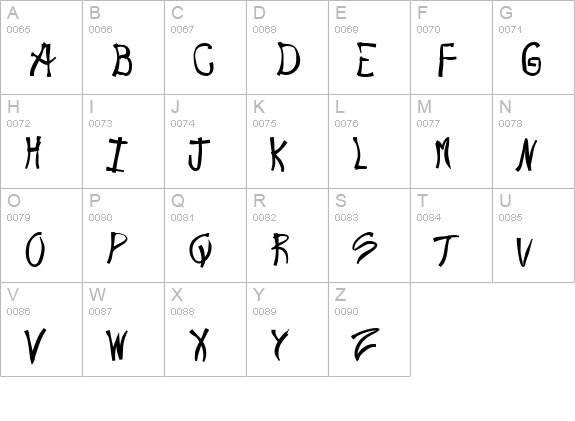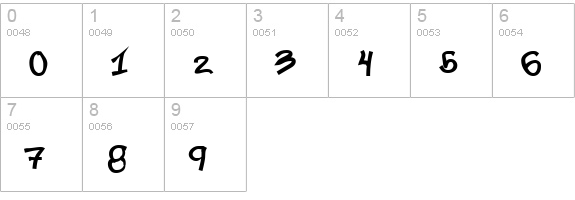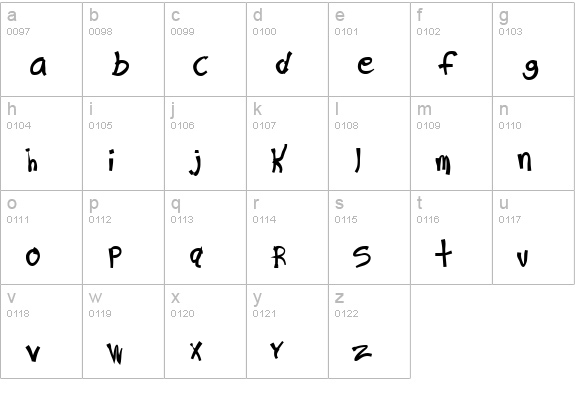
Ra's Hand Font Details
Ra's Hand is a unique and captivating font that brings a touch of elegance and artistry to any design project. With its fluid and graceful strokes, this font emulates the beauty and intricacy of hand-drawn calligraphy. Each character is meticulously crafted, showcasing the artist's attention to detail and commitment to excellence. Featuring a harmonious balance between thin and thick lines, Ra's Hand exudes a sense of sophistication and refinement. Its delicate curves and gentle arches create a visually pleasing aesthetic that is both pleasing to the eye and easy to read. Whether used for headlines, logos, invitations, or any other creative endeavor, this font is sure to elevate your design to new heights. One of the most remarkable aspects of Ra's Hand is that it is freely available to download at FontsMarket.com. This means that you can add this stunning font to your collection without any cost, making it an ideal choice for both personal and commercial projects. With its generous availability, Ra's Hand allows designers from all walks of life to access and utilize its beauty and versatility. So, whether you're a professional graphic designer looking for an exquisite addition to your font library or an amateur enthusiast seeking to enhance your personal projects, Ra's Hand is the perfect choice. Its timeless elegance and effortless charm will undoubtedly make a lasting impression on your audience. Don't miss out on the opportunity to incorporate this remarkable font into your designs – download Ra's Hand today and unlock the full potential of your creativity.